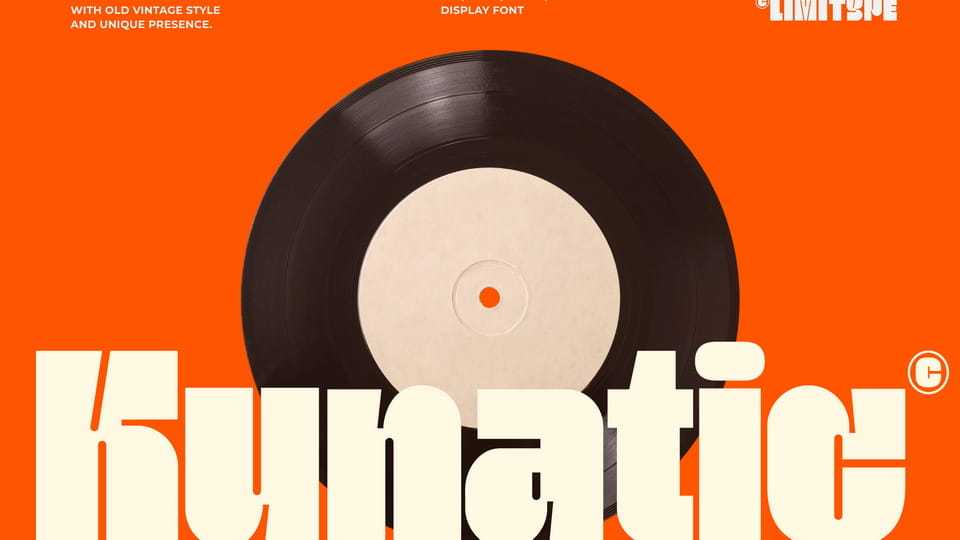
Download Kunatic font, a condensed old retro display typeface designed to deliver a bold and unique visual presence. This typeface combines vintage inspired character with clean, structured letterforms,